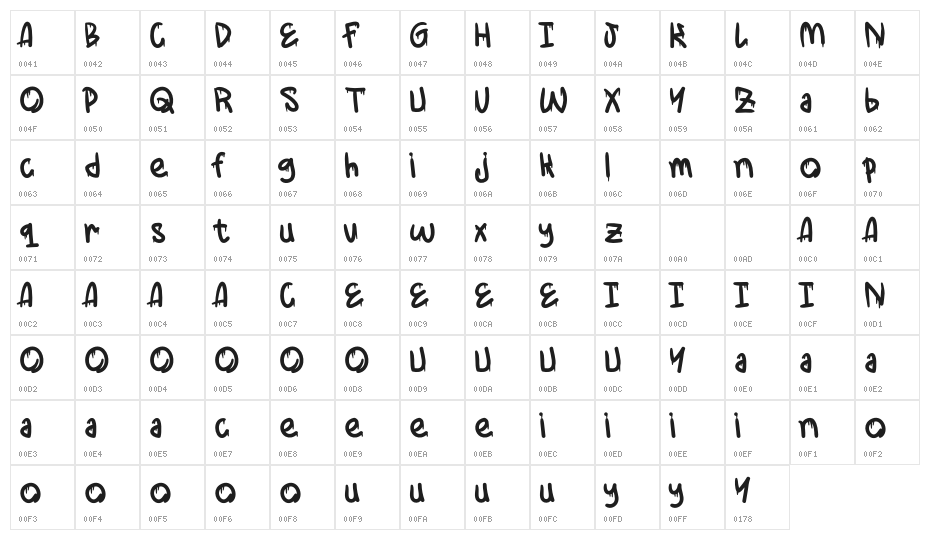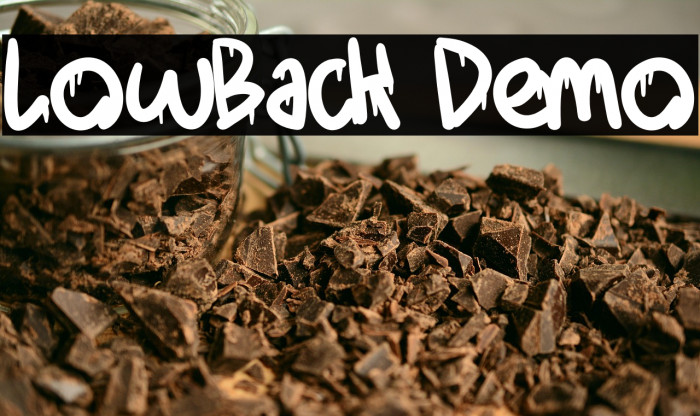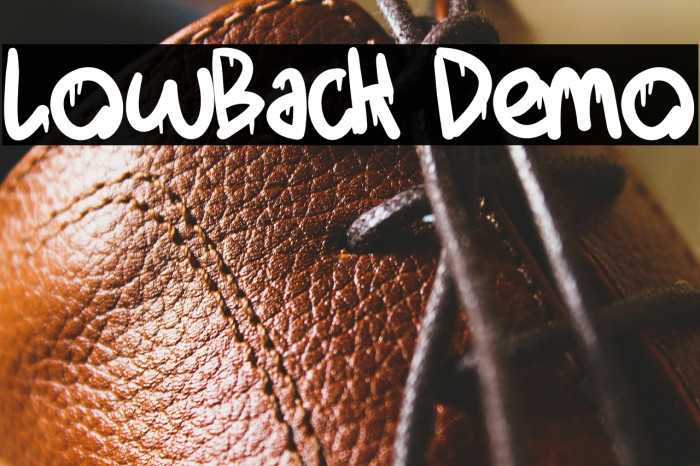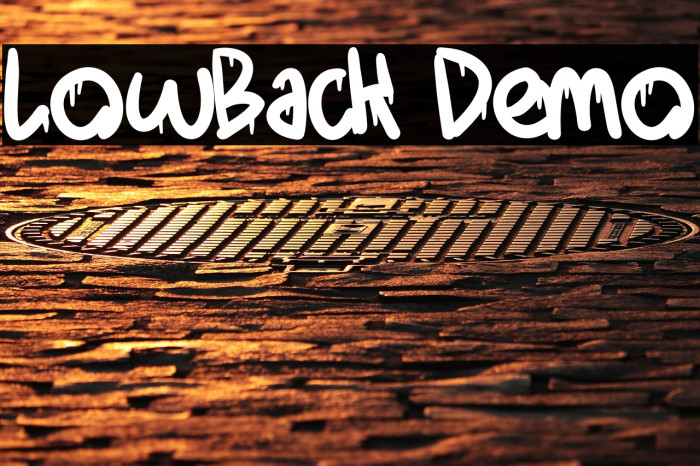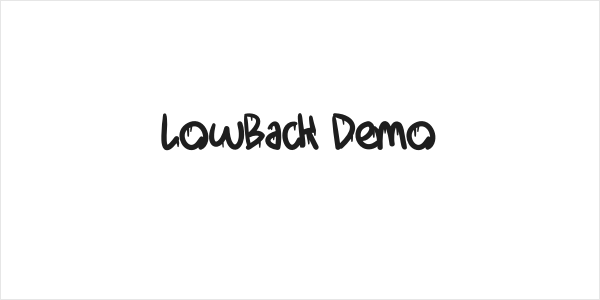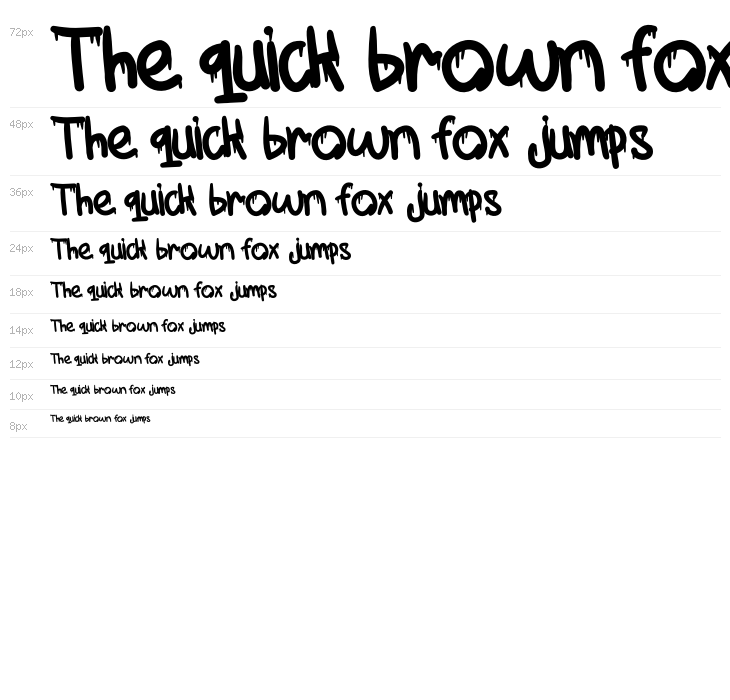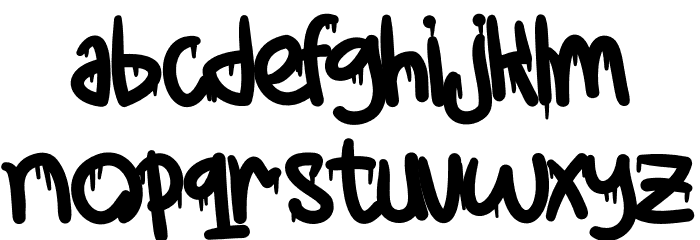
LowBack Demo Font
LowBack Demo Description
This font features a bold, graffiti-inspired style with a playful and energetic feel. The letters have a dripping effect, reminiscent of spray paint, giving it a rebellious and urban vibe. The uppercase and lowercase characters maintain a consistent thickness, contributing to a cohesive look. The font's design is informal and dynamic, making it suitable for projects that aim to capture attention and convey a sense of creativity and spontaneity. The characters are well-spaced, ensuring readability despite the unconventional style. This font is ideal for use in designs that require a bold statement, such as posters, album covers, or streetwear branding.
| Overall Style | Urban, Graffiti, Playful |
| Use Case | Logos, Posters, Album Covers |
| Proposed Projects | Perfect for street art-themed designs, music album covers, urban fashion branding, and eye-catching posters. |